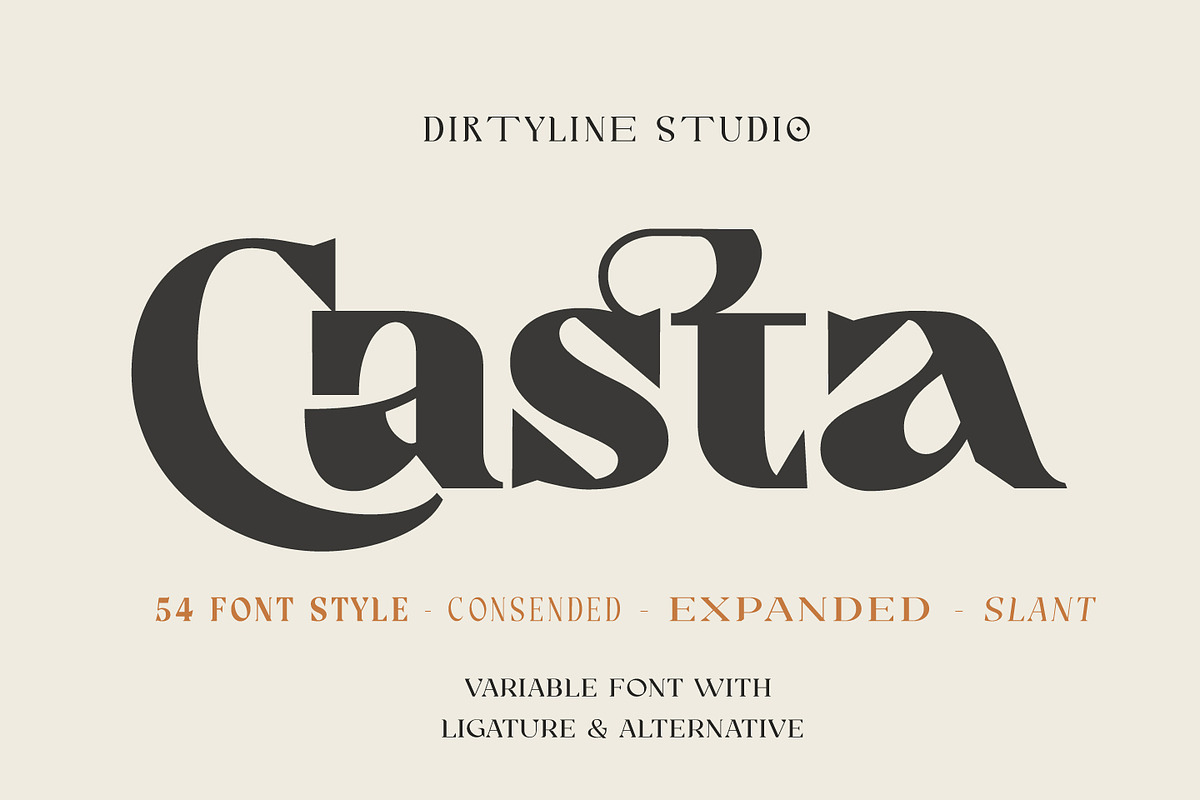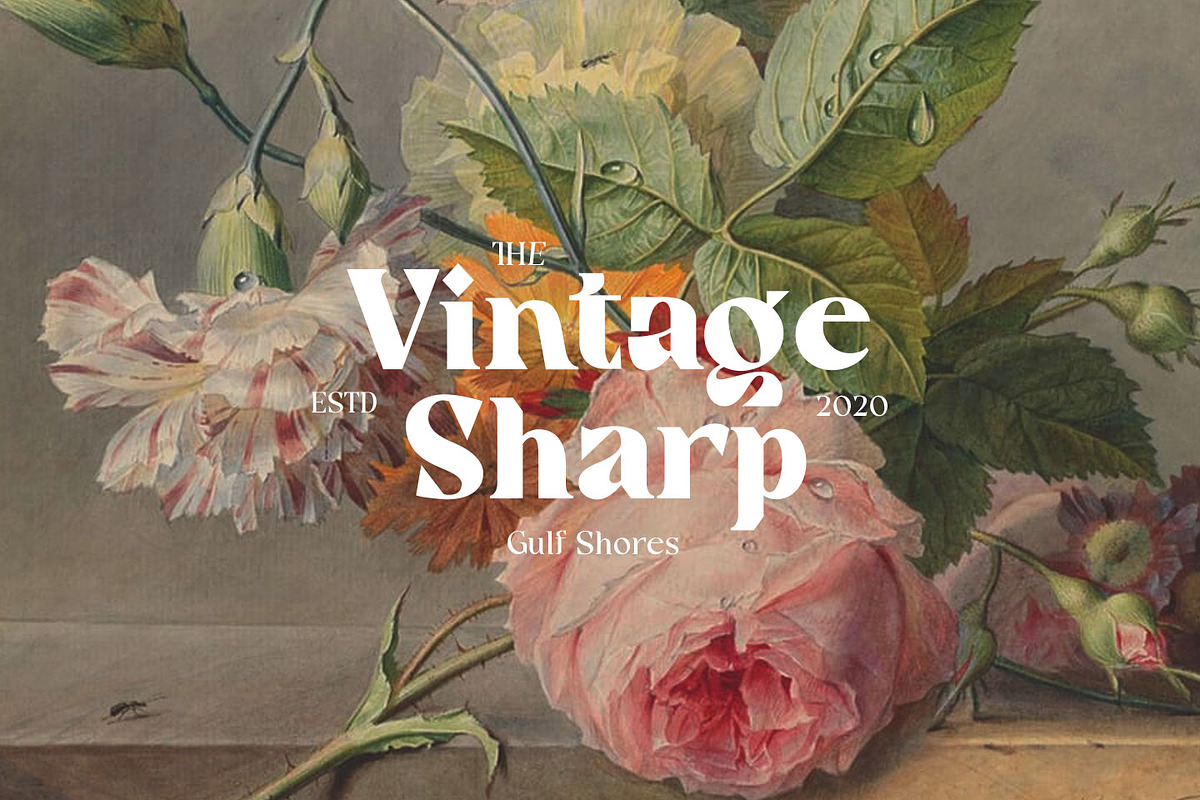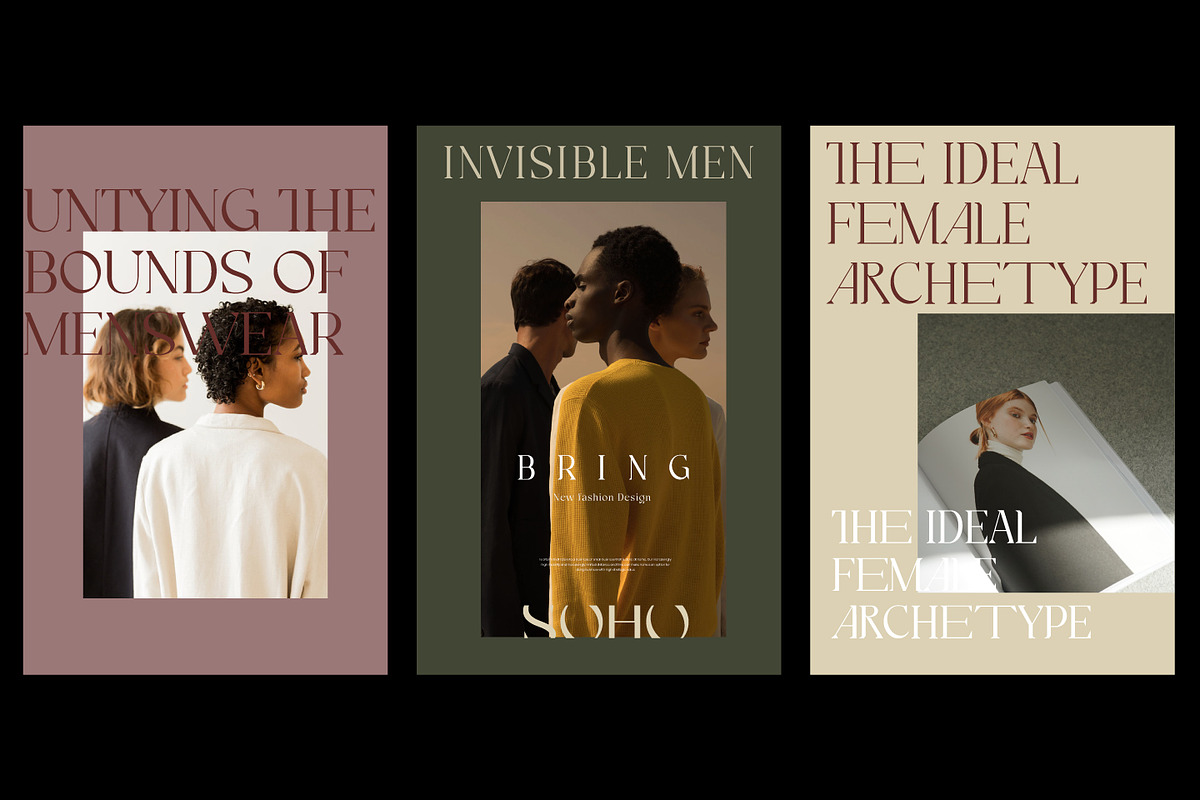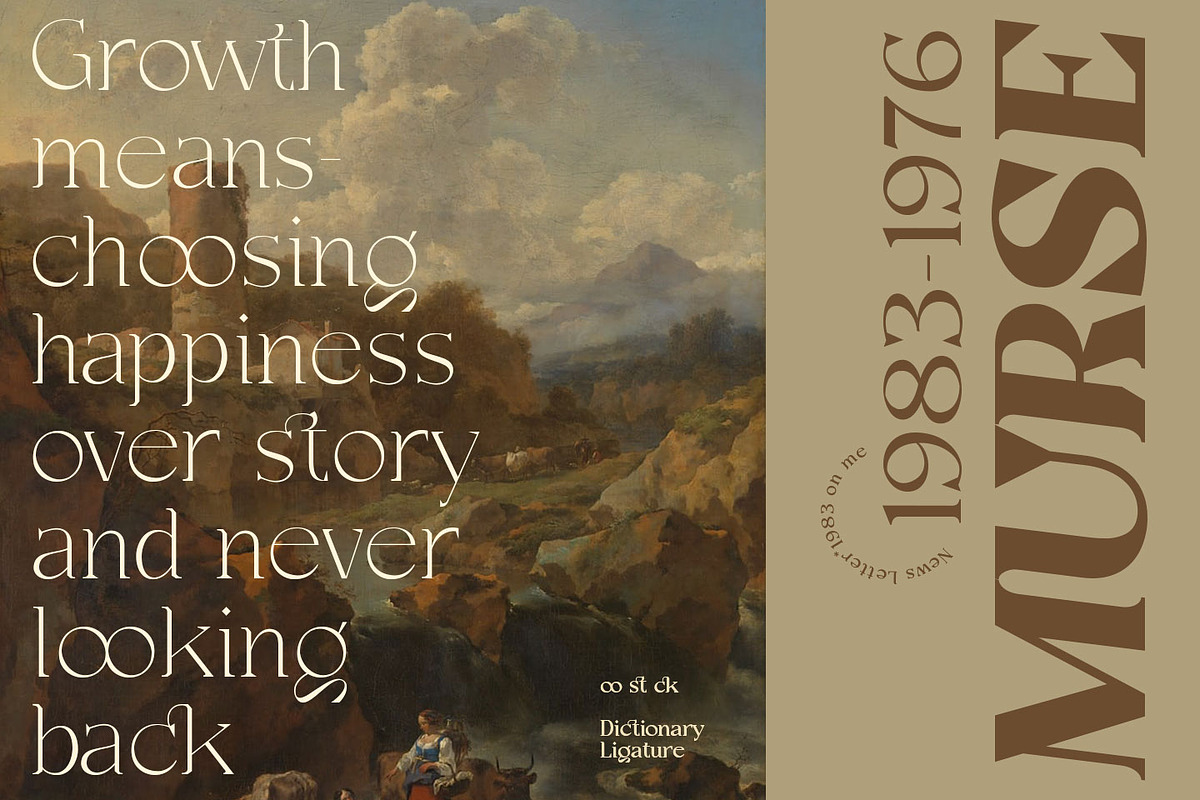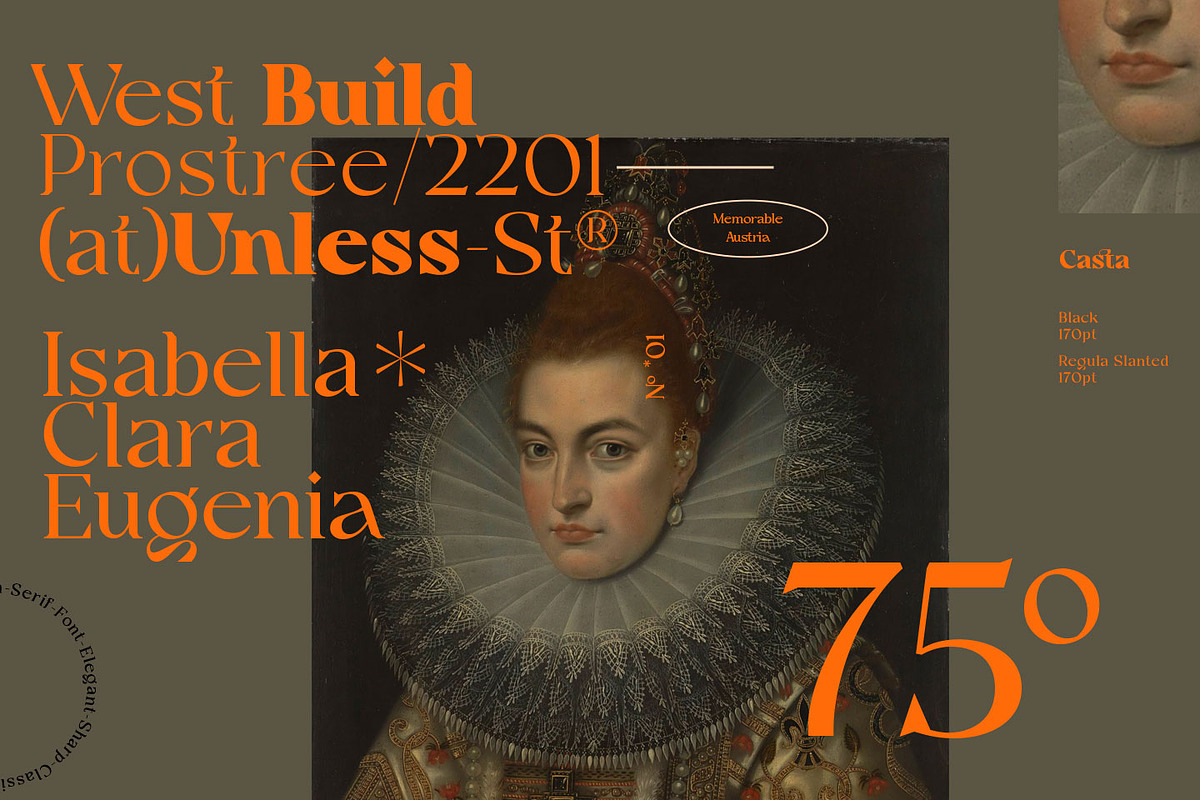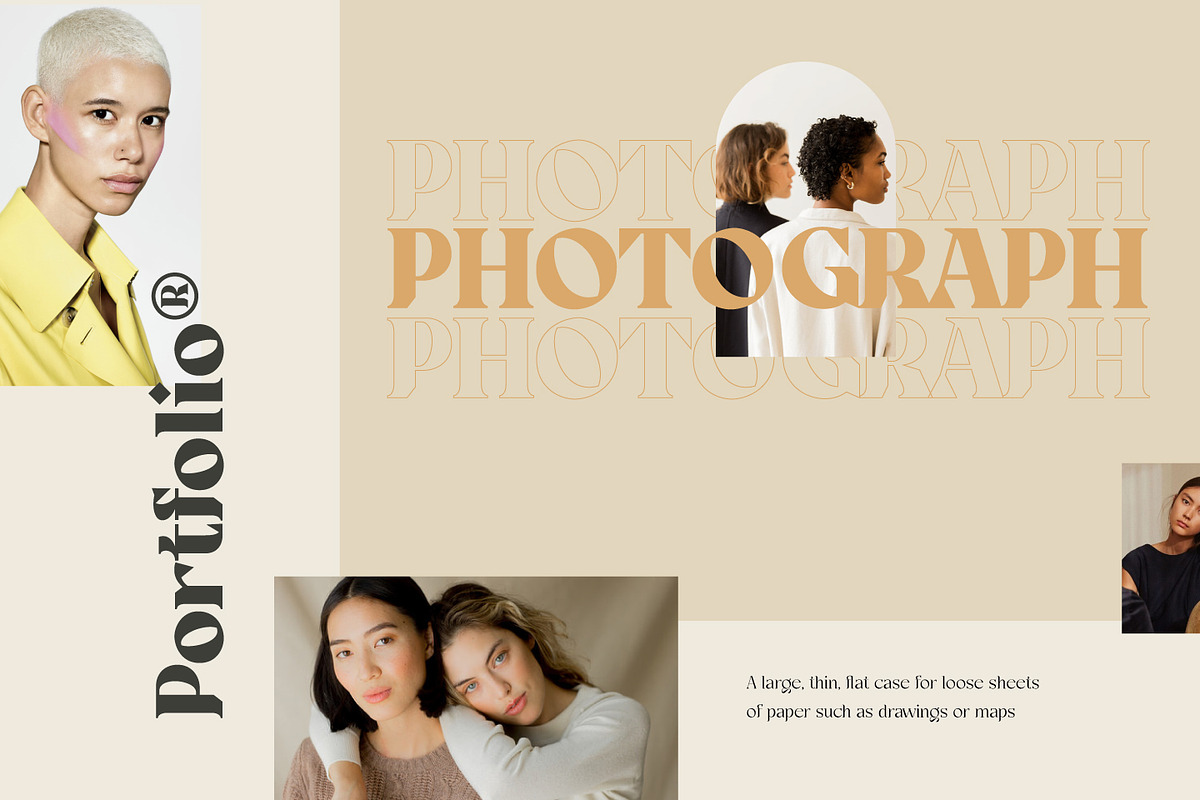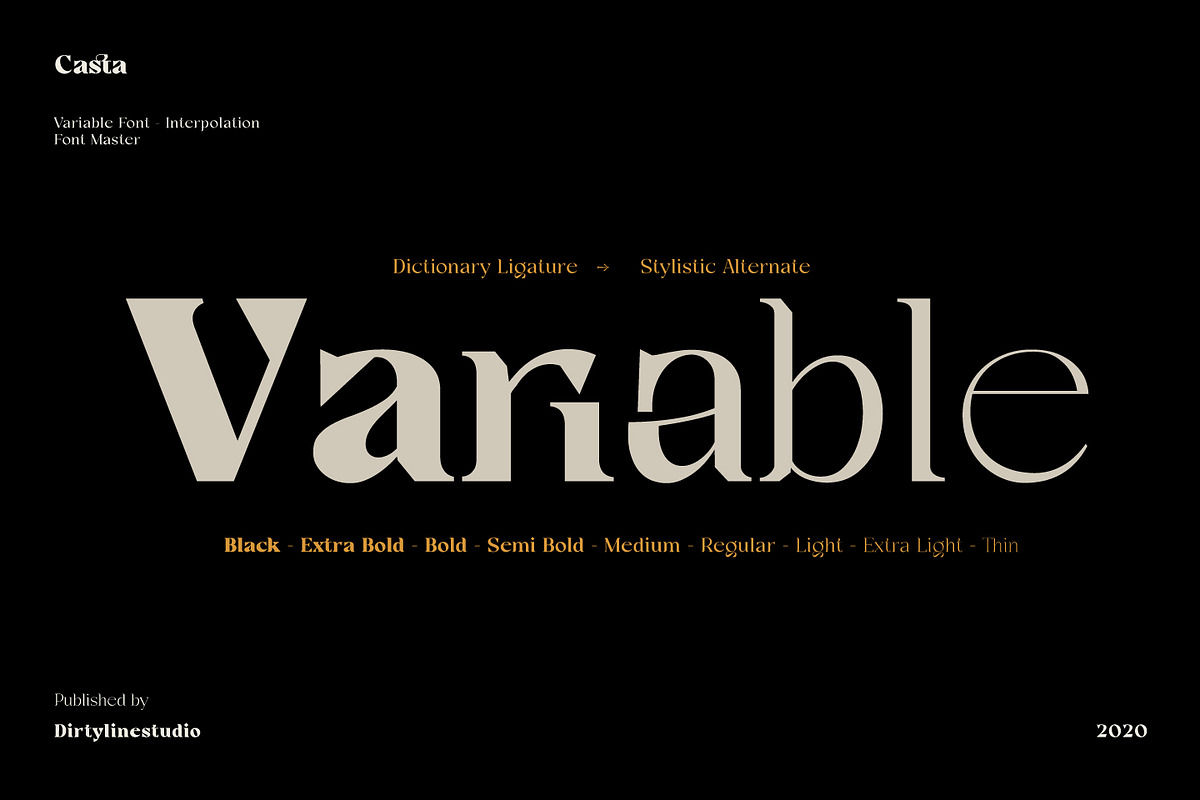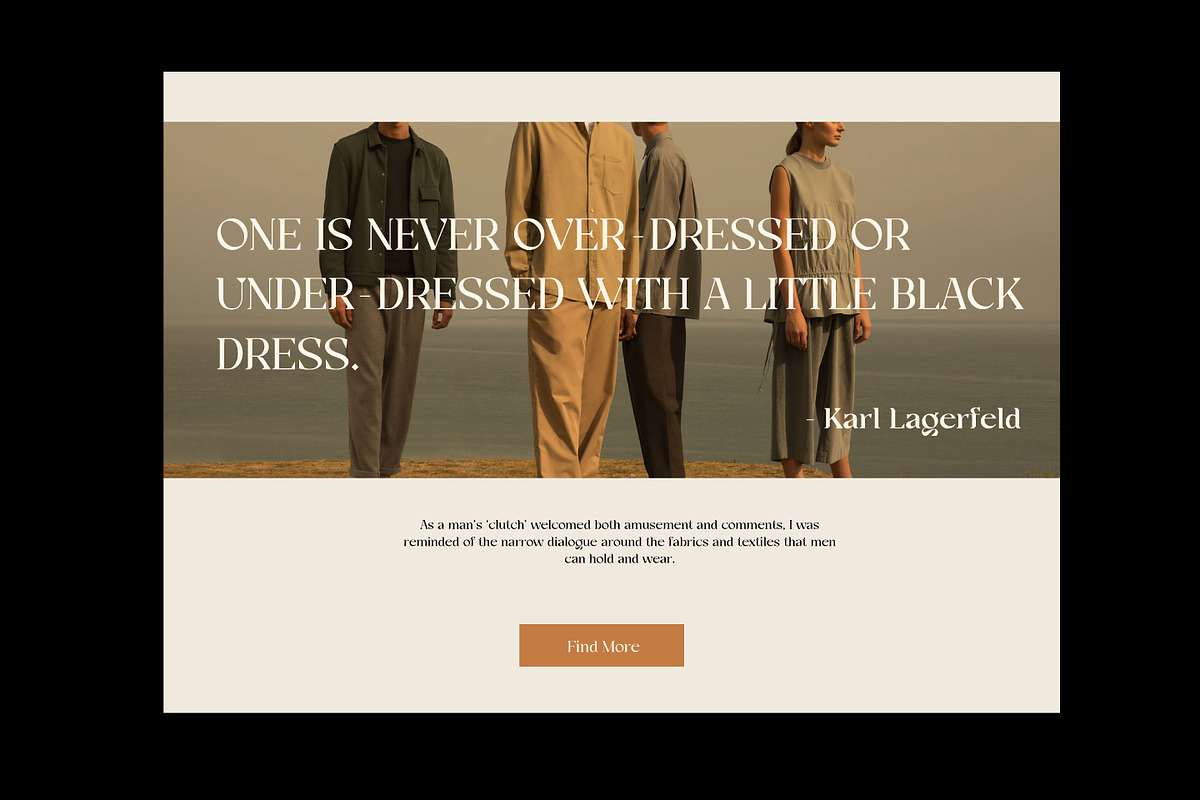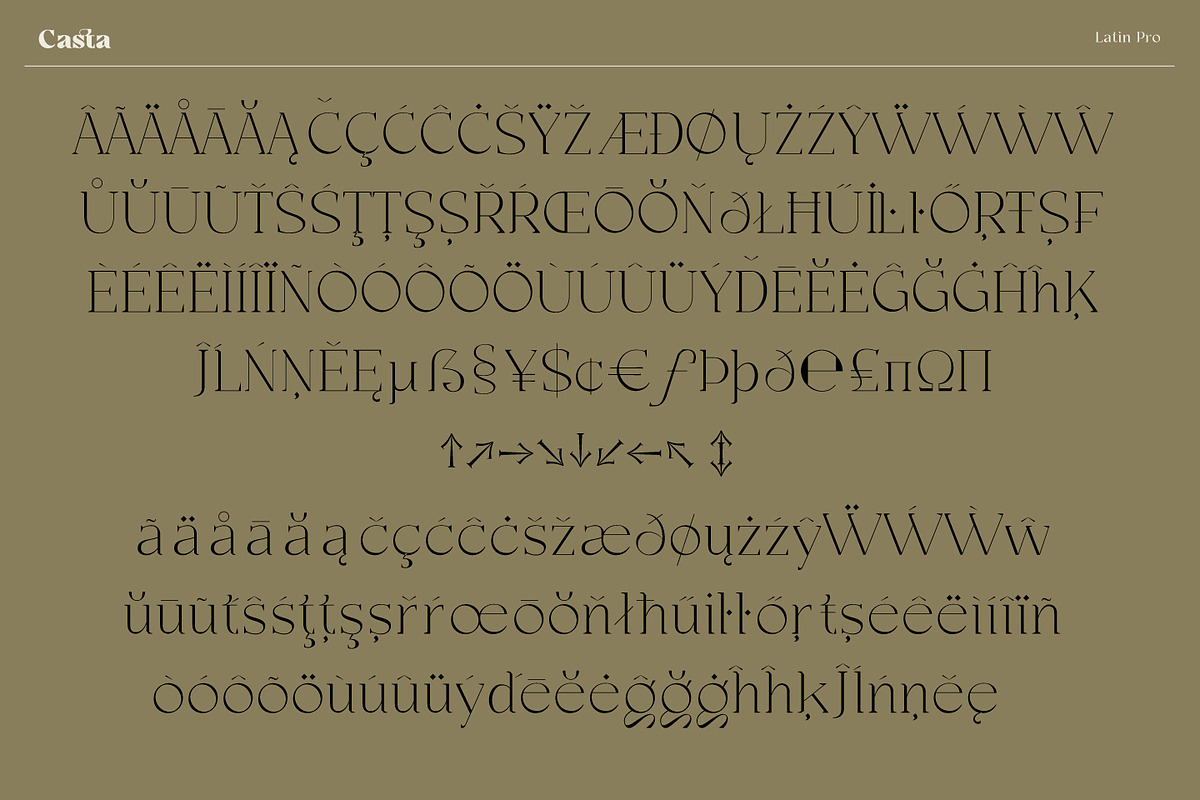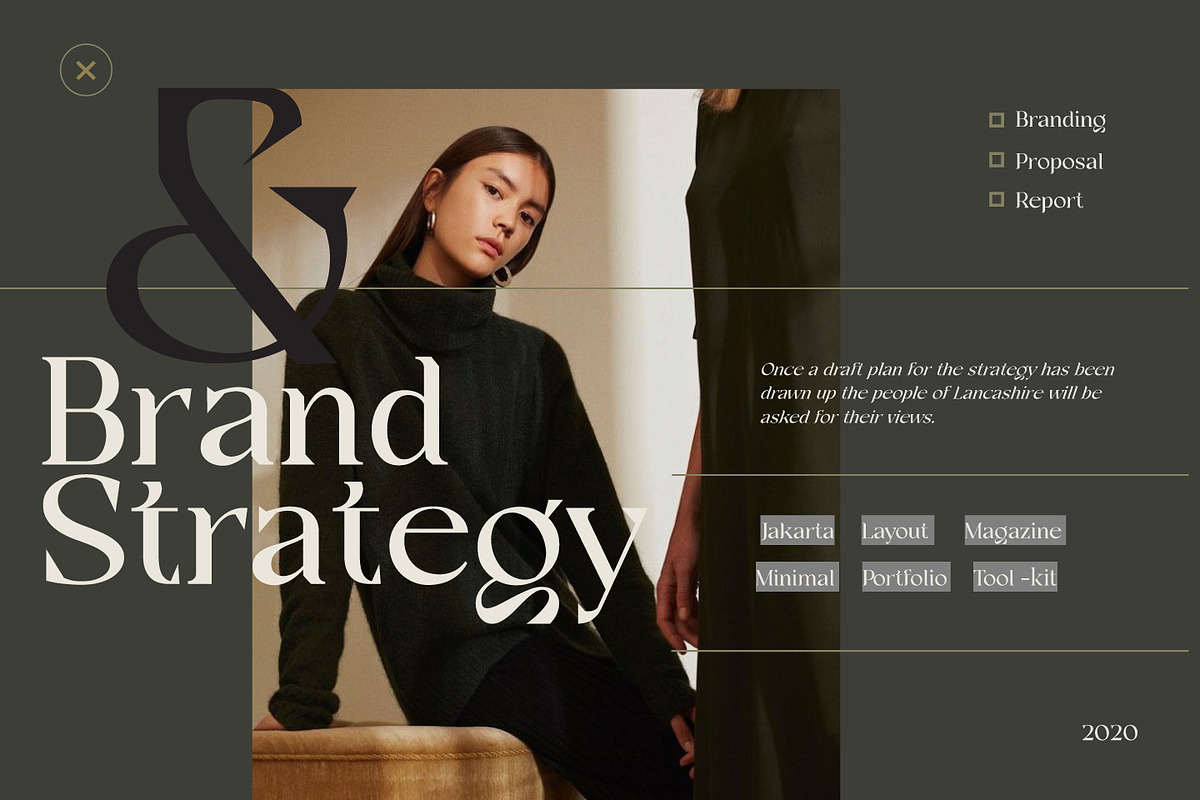
Casta – Display Sans Serif Font
Casta is strong Modern contrasts make this typeface both impressive at display sizes and easily readable in text size, while the sharp shapes of the triangular serifs and the distinctive letter shapes show their strength in logo design and impressive editorial use.
Casta come with elegant style, strength and contrasts, with features an extended latin character set of 429 glyphs covering over 28 languages, and includes advanced open type features like standard and discretionary ligatures, positional numerals, stylistic alternates and case sensitive brackets. Mixing versatility and personality, Casta is ready to be like a top model on the design catwalk, making your projects looking classic but contemporary, finely tuned but assertive, and elegant as the best luxury fashion.
- 54 Font Style
- 1 Font Variable
- Extended Latin
- Opentype Feature
- Alternate Character
- Multilanguage